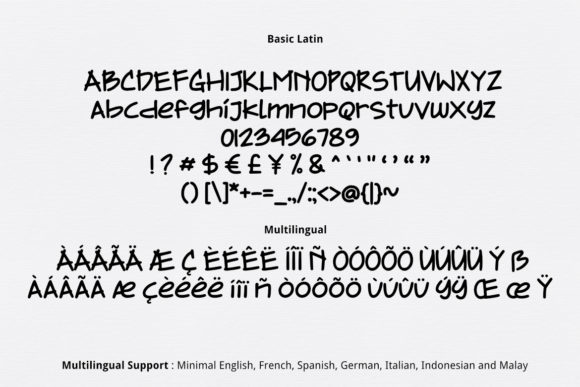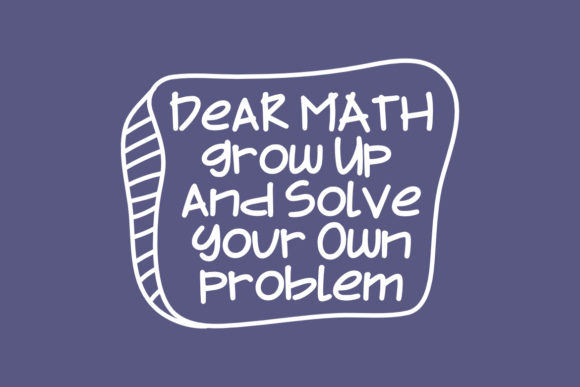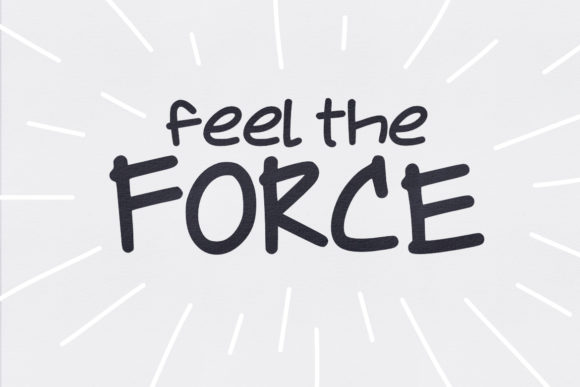
Discover the Charm of Asymmetric Font: Elevate Your Designs with a Unique Display Font
In the world of typography, fonts play a crucial role in conveying messages, expressing emotions, and creating visual identities. For designers, crafters, and DIY enthusiasts, finding the perfect font can make all the difference in bringing their creative ideas to life. This is where Asymmetric Font comes in – a simple, cute, and versatile display font that’s perfect for a wide range of crafty projects.
What is Asymmetric Font?
Asymmetric Font is a thoughtfully designed display font that boasts an original and charming look. Its unique asymmetrical design sets it apart from traditional fonts, making it an excellent choice for those looking to add a touch of personality to their designs. Whether you’re working on letterheads, titles, stationery, or any other creative project, Asymmetric Font is sure to make a statement.
Key Features of Asymmetric Font
- Unique Asymmetrical Design: The font’s distinctive asymmetrical style adds a playful and whimsical touch to any design.
- Simple and Cute: Asymmetric Font’s clean and straightforward design makes it easy to read and visually appealing.
- Versatile: Perfect for a wide range of crafty ideas, from letterheads and titles to stationery and more.
- Display Font: Designed specifically for display purposes, Asymmetric Font is ideal for headlines, titles, and other prominent text elements.
Why Choose Asymmetric Font?
With so many fonts available, why choose Asymmetric Font? Here are just a few reasons why designers and crafters love this unique display font:
- Adds Personality to Your Designs: Asymmetric Font’s distinctive style helps your designs stand out from the crowd and adds a touch of personality.
- Easy to Read: Despite its asymmetrical design, Asymmetric Font remains easy to read, making it perfect for titles, headings, and other display text.
- Perfect for Crafty Projects: Whether you’re working on a DIY project, creating handmade cards, or designing custom stationery, Asymmetric Font is an excellent choice.
How to Use Asymmetric Font in Your Designs
Ready to incorporate Asymmetric Font into your designs? Here are some ideas to get you started:
- Letterheads and Stationery: Add a touch of personality to your letterheads, invoices, and stationery with Asymmetric Font.
- Handmade Cards and Invitations: Create unique and eye-catching handmade cards and invitations with Asymmetric Font.
- DIY Projects: Use Asymmetric Font to add a personal touch to your DIY projects, such as crafts, decorations, and more.
- Digital Designs: Incorporate Asymmetric Font into your digital designs, including social media graphics, blog posts, and website headers.
Tips for Pairing Asymmetric Font with Other Fonts
To create visually appealing designs, it’s essential to pair Asymmetric Font with complementary fonts. Here are some tips:
- Pair with Serif Fonts: Combine Asymmetric Font with serif fonts for a classic and elegant look.
- Match with Script Fonts: Pair Asymmetric Font with script fonts for a playful and whimsical feel.
- Use with Sans-Serif Fonts: Combine Asymmetric Font with sans-serif fonts for a modern and clean look.
| Font Name | Asymmetric Font |
| Author | YandiDesigns |
Asymmetric Font is a unique and charming display font that’s perfect for designers, crafters, and DIY enthusiasts. Its asymmetrical design adds a touch of personality to any project, making it an excellent choice for a wide range of crafty ideas. With its simplicity, versatility, and ease of use, Asymmetric Font is sure to become a favorite in your design toolkit.